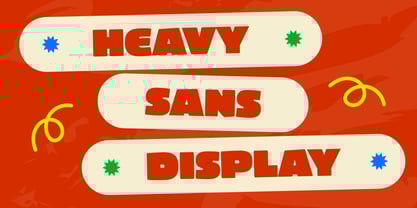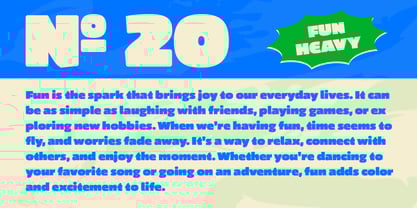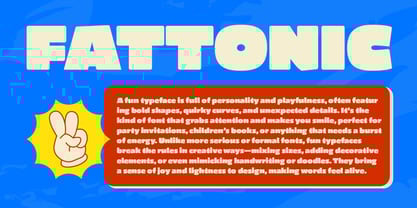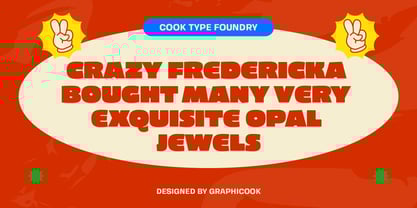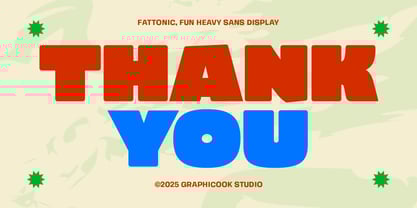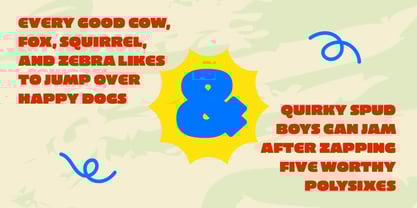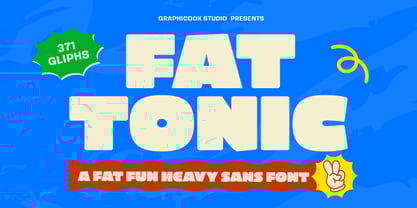
Cook Fattonic
by Graphicook Studio
The Cook Fattonic Font Family was designed by Gumilar Febriansyah and published by Graphicook Studio. Cook Fattonic contains 1 styles. More about this family
Fattonic is an experimental font with thick, wide letterforms and a retro flair. It’s great for logos, headlines, or designs with pop art and nostalgic aesthetics.
Designers: Gumilar Febriansyah
Foundry: Graphicook Studio